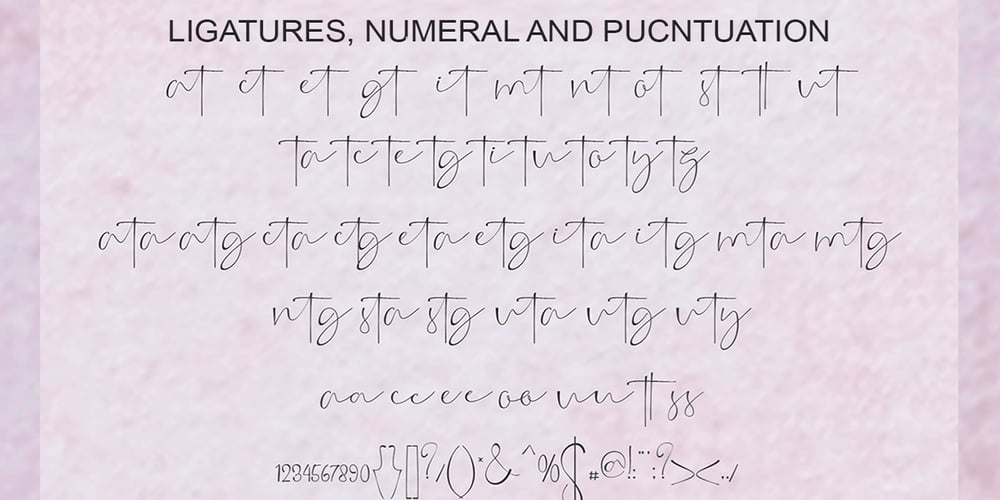
Gesture Font Family was designed by Muhammad Akbar and published by Sinfa. Gesture contains 1 styles and family package options. A desire that is honored, a result that describes a gesture that combines script fonts with Signature to meet customer desires. The embodiment of the results that are more likely to be in a signature that is perfect for logos and branding, you determine it yourself .